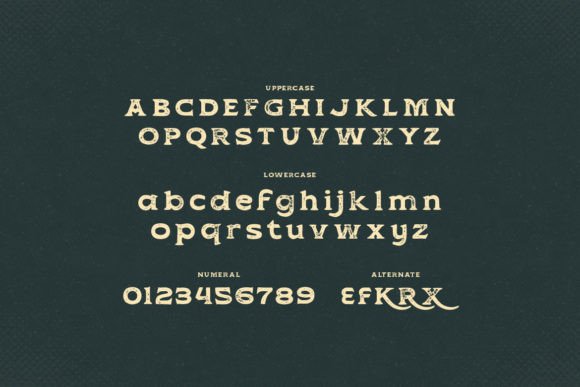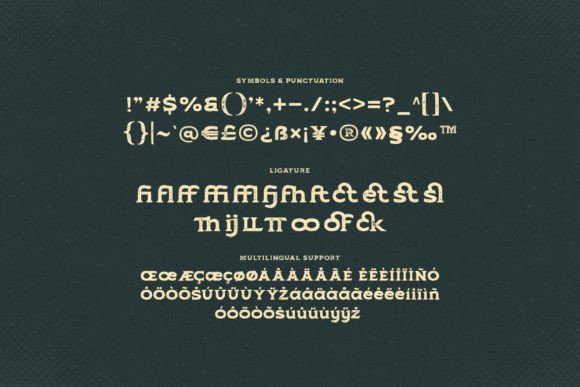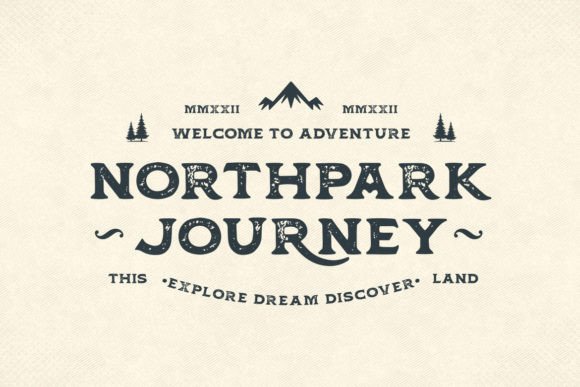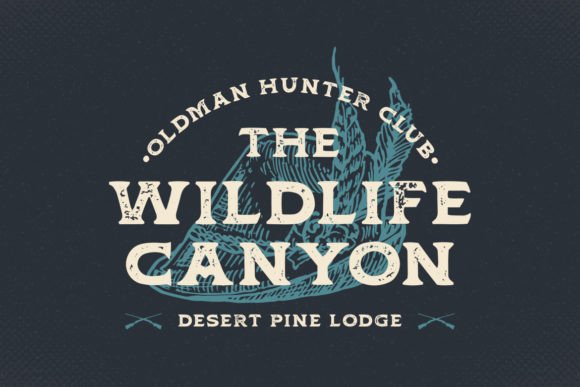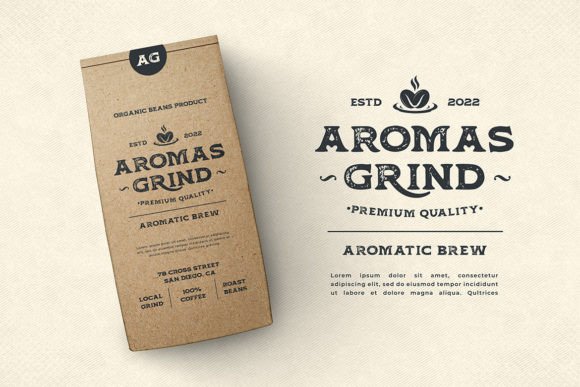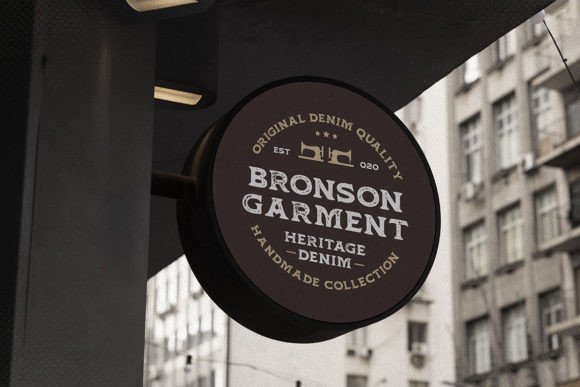
Introduction to Mortaren Font
Mortaren is a vintage serif font.
It can be used for various purposes such as logos, headings, coffee shops, vintage restaurants, letterhead, signage, labels, news, posters, badges, and so much more .
Mortaren Font offers exceptional quality and versatility, making it a valuable addition to your design toolkit. Whether you’re creating for personal projects or commercial use, Mortaren Font delivers professional results.